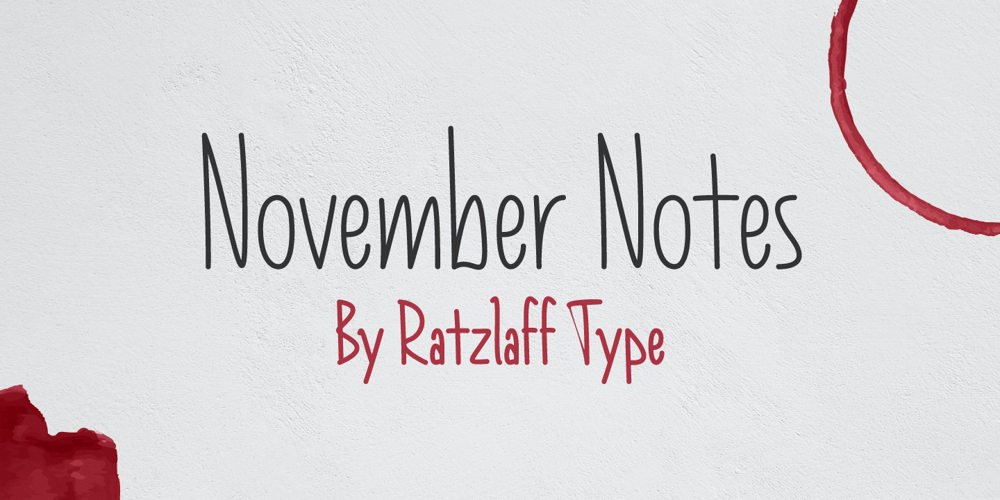
November Notes Font Family was designed by Leonardo Ratzlaff, Gabriel Ratzlaff and published by Ratzlaff Type. November Notes contains 2 styles and family package options. A condensed handwritten for your notes and poems.